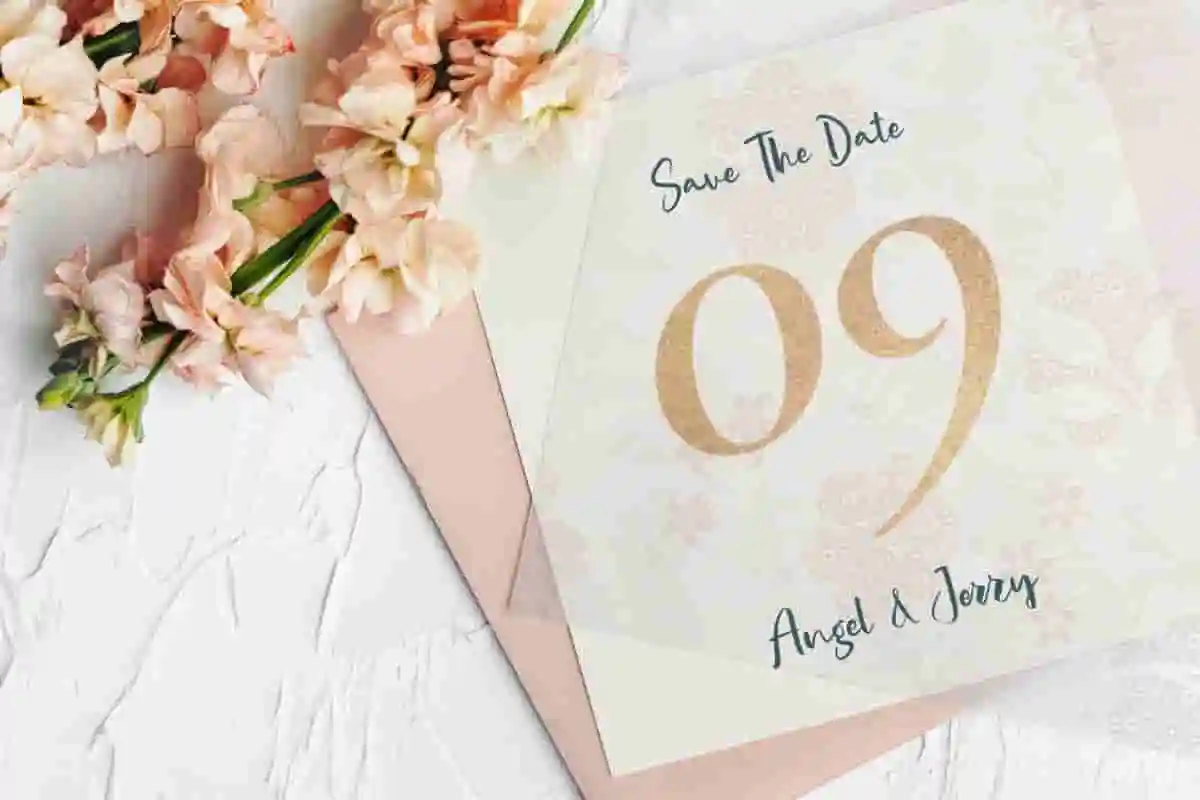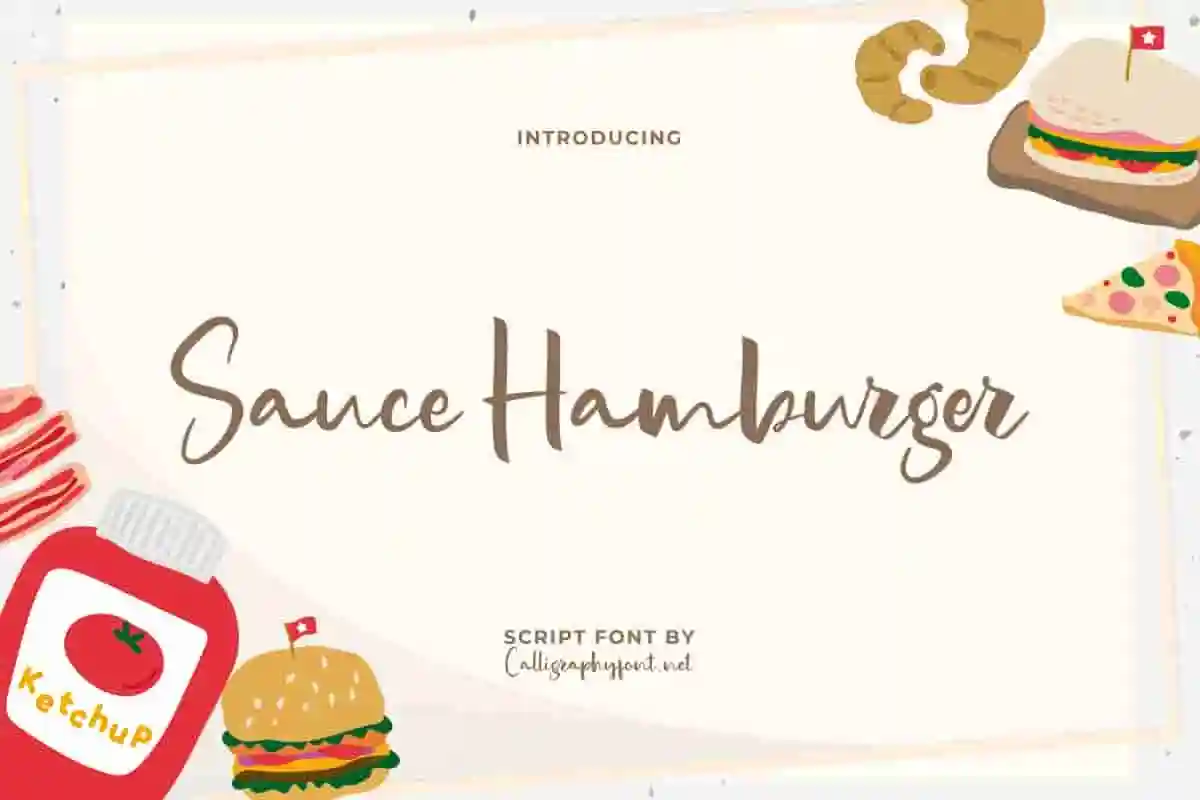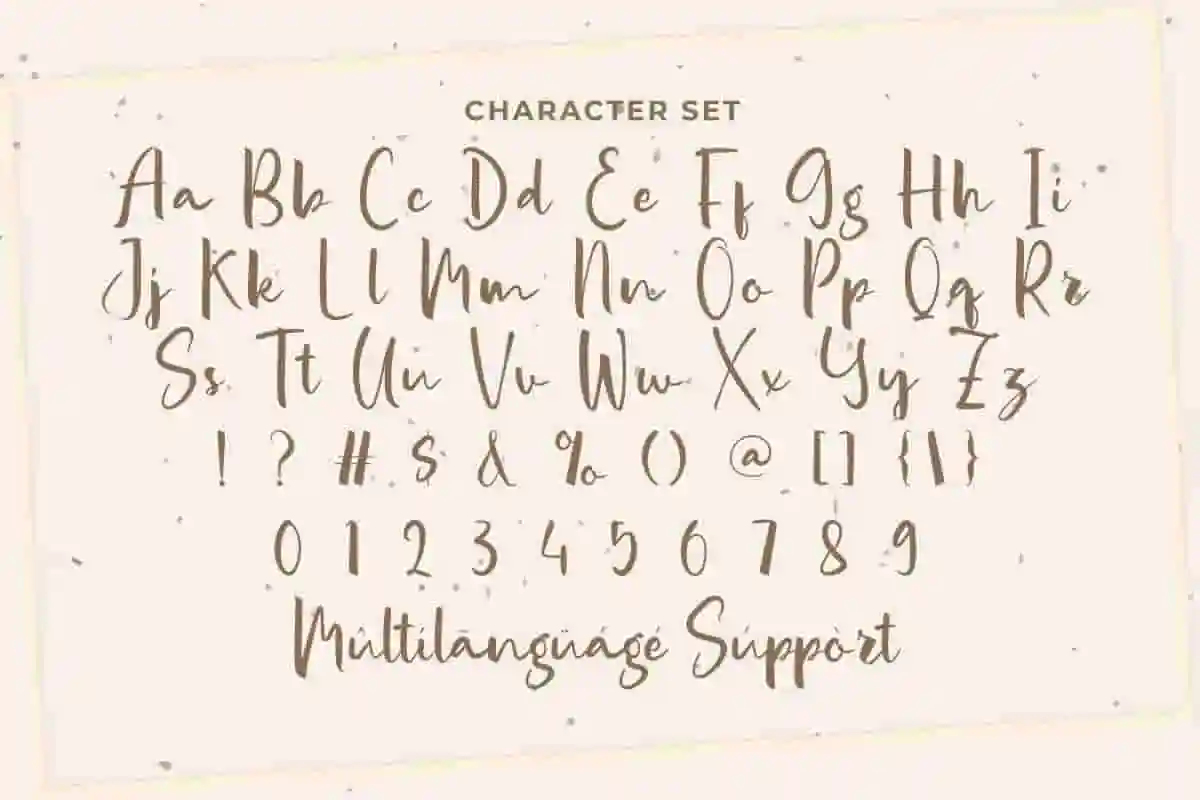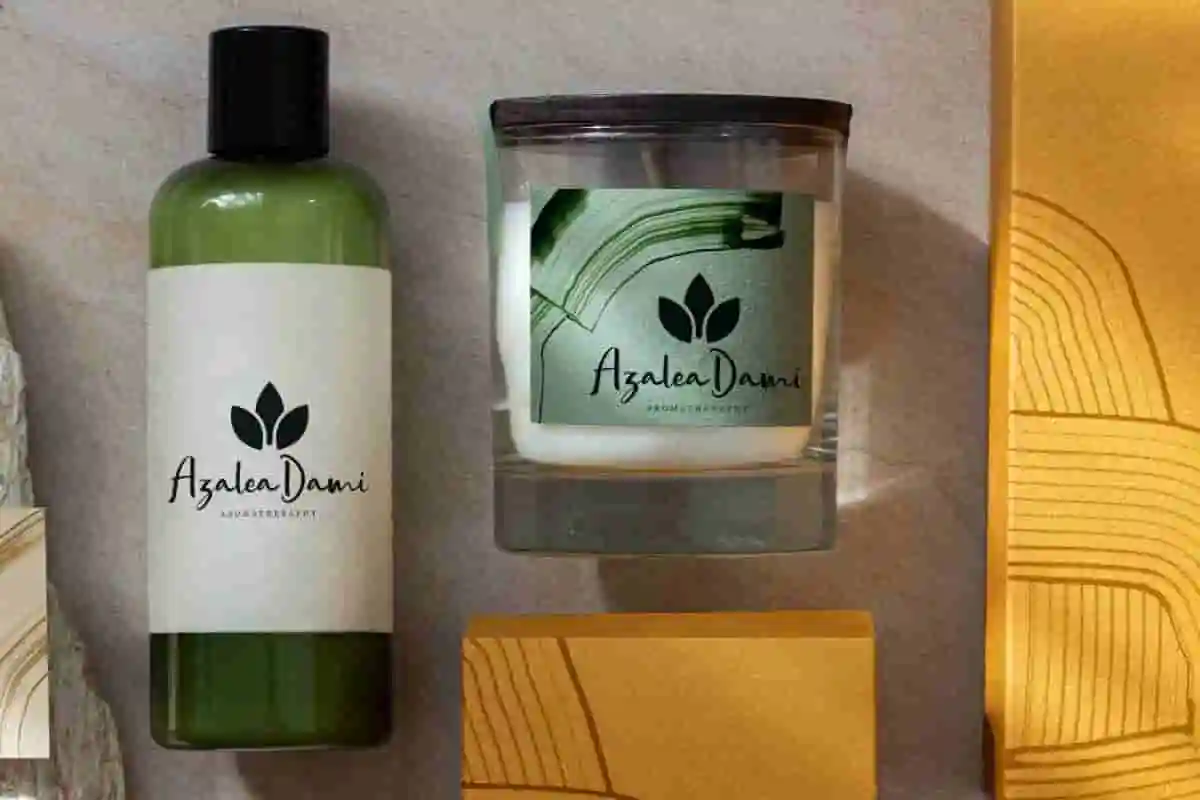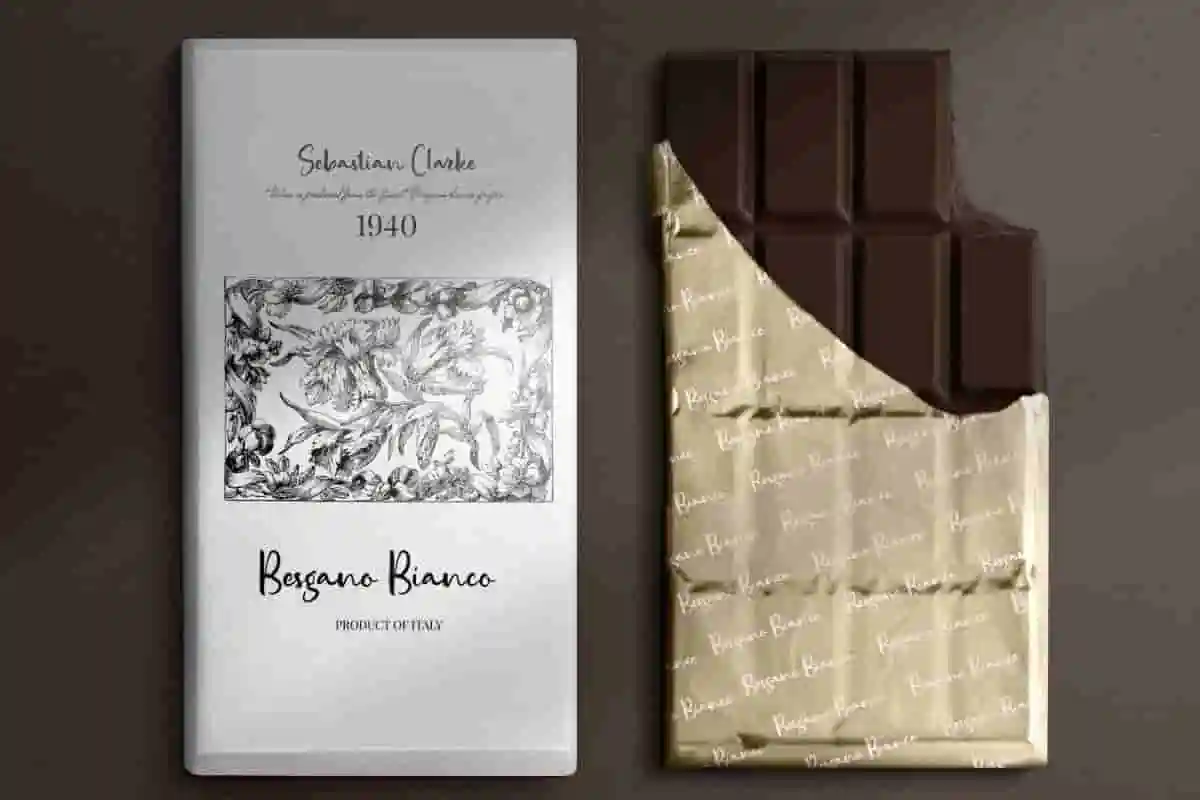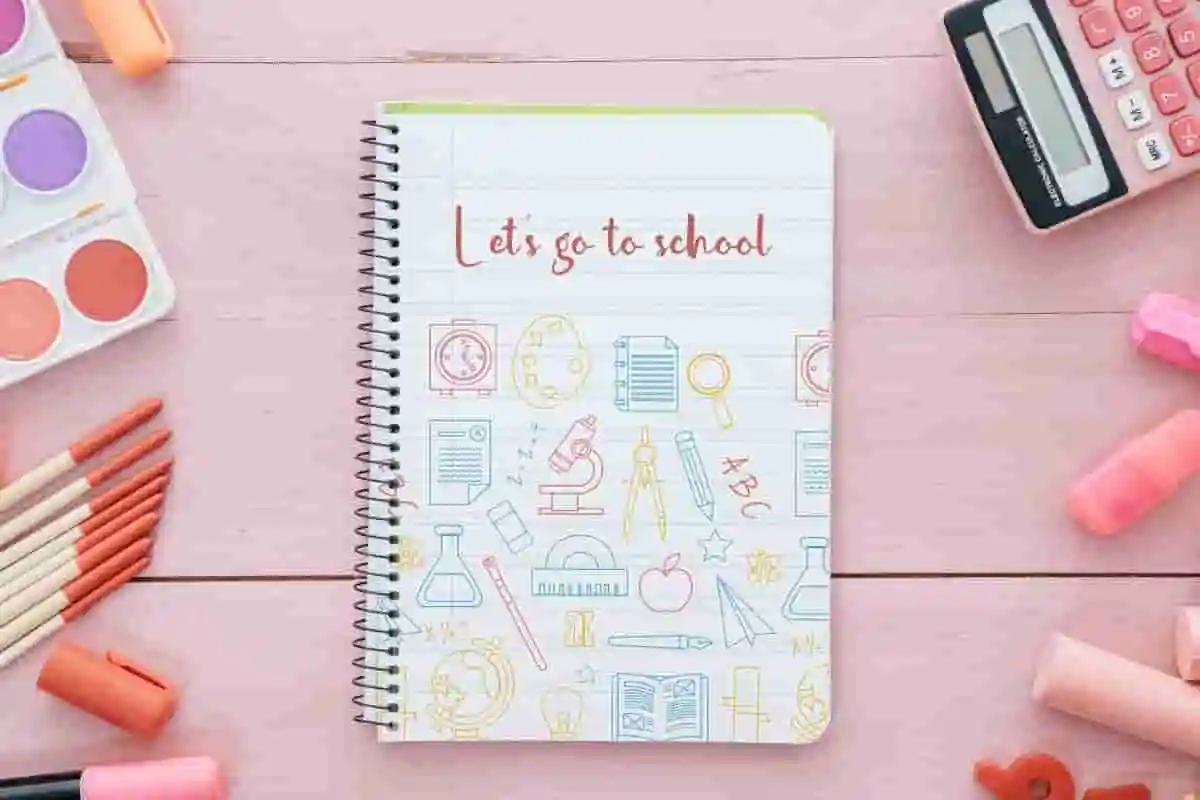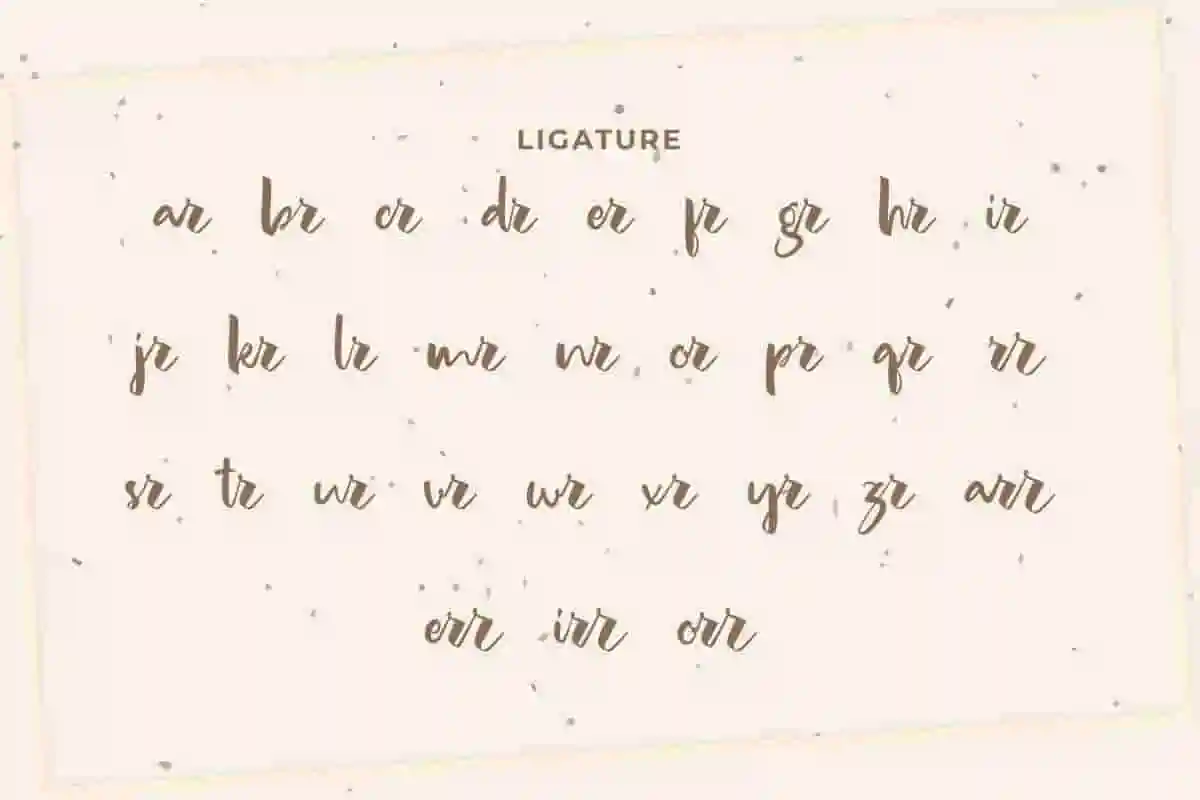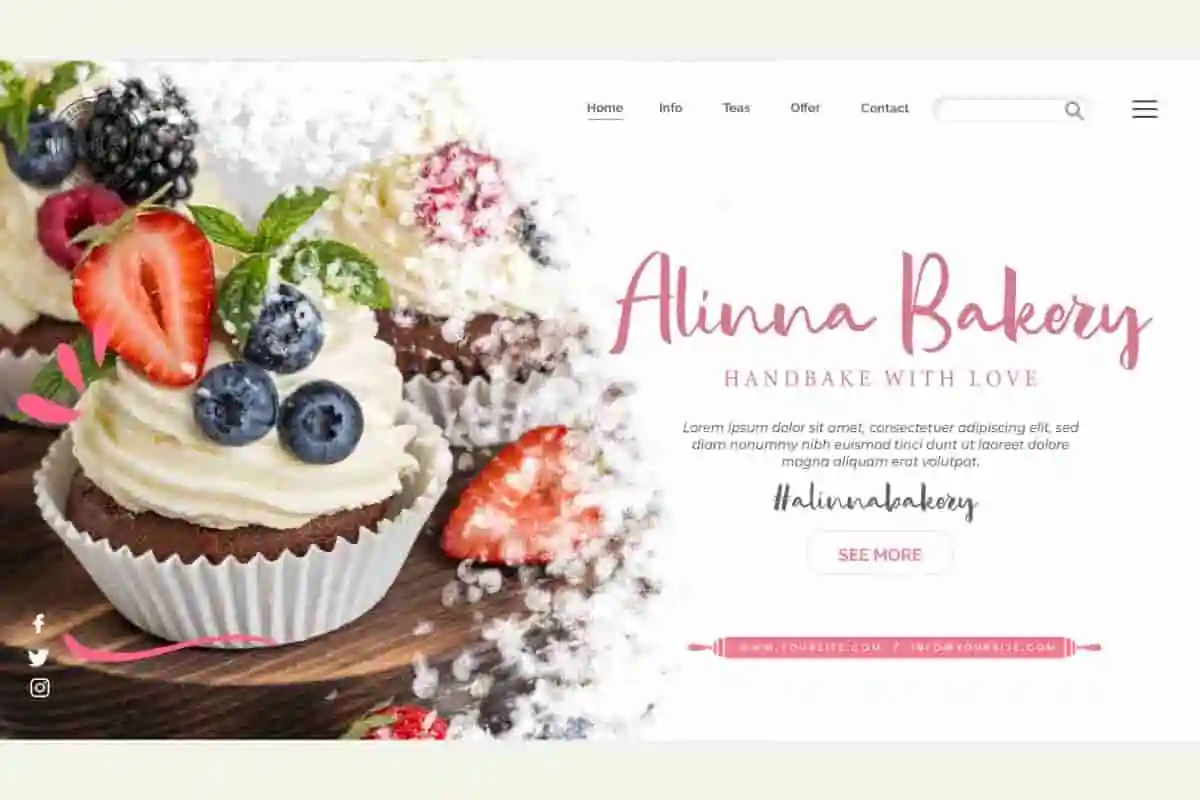
Sauce Hamburger Font
Sauce Hamburger Font is a beautiful script font, made with care to support graphic design needs, restaurant, skincare brand, stationery, website, wedding and many more!
Sauce Hamburger Font is a beautiful calligraphic script font with aesthetic curves in all letters. This type of font can always make a design look beautiful, but is still easy to read and looks clean. It’s perfectly made to apply especially to any creative project, such as invitation, cover, custom design, label, brand logo, packaging, quote, screen print, website or any type of advertising purpose.
Sauce Hamburger Font is a magnificent type of font and inspired by classic handwriting. It adds an aesthetic feel that makes your work more appealing, so it’s perfect for any industry, such as wedding organizer, accessories, advertisement, author, beauty industry, café, content creator, cosmetic, fashion brand, furniture, graphic design, handicraft, interior design, photography, printing, publishing, skincare, wedding, writer, etc.
Sauce Hamburger Font comes with a full set of Basic Uppercase and Lowercase Characters, Numbers, Punctuation and Symbols, and Ligature. Also equipped with Ligature characters that will decorate this font along with multilingual character support. Ready to use on either Windows or Mac machines with simple installation. It is tested to work well in Adobe Applications (Illustrator, Adobe InDesign, Adobe Photoshop) CorelDraw, and others that support the OpenType feature and the Glyphs panel so you can view and access all Glyph variations.